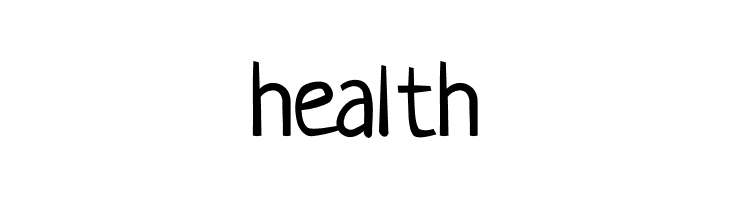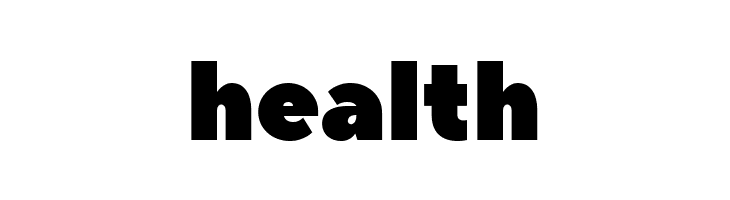
A thin, italicized geometric font with a modern and technical style.
A bold, condensed sans-serif font with a modern and clean design.
A playful, whimsical script font with fluid, dynamic letterforms.
A modern, bold sans-serif font with clean lines and excellent legibility.
A bold, angular font with a modern, edgy style.
A rugged, hand-drawn font with angular strokes and a unique, edgy appearance.
A bold, geometric stencil font with an industrial, utilitarian feel.
A bold, stencil-style font with geometric shapes and industrial aesthetics.
A modern serif font with elegant curves and balanced proportions.
A modern serif font with elegant, slender strokes and slight contrast.
A modern serif font with bold strokes and elegant serifs.
A classic serif font with elegant curves and a sophisticated style.
A classic serif font with high contrast and elegant strokes.
A classic serif font with high contrast and elegant serifs.
A classic serif font with modern elegance and medium contrast.